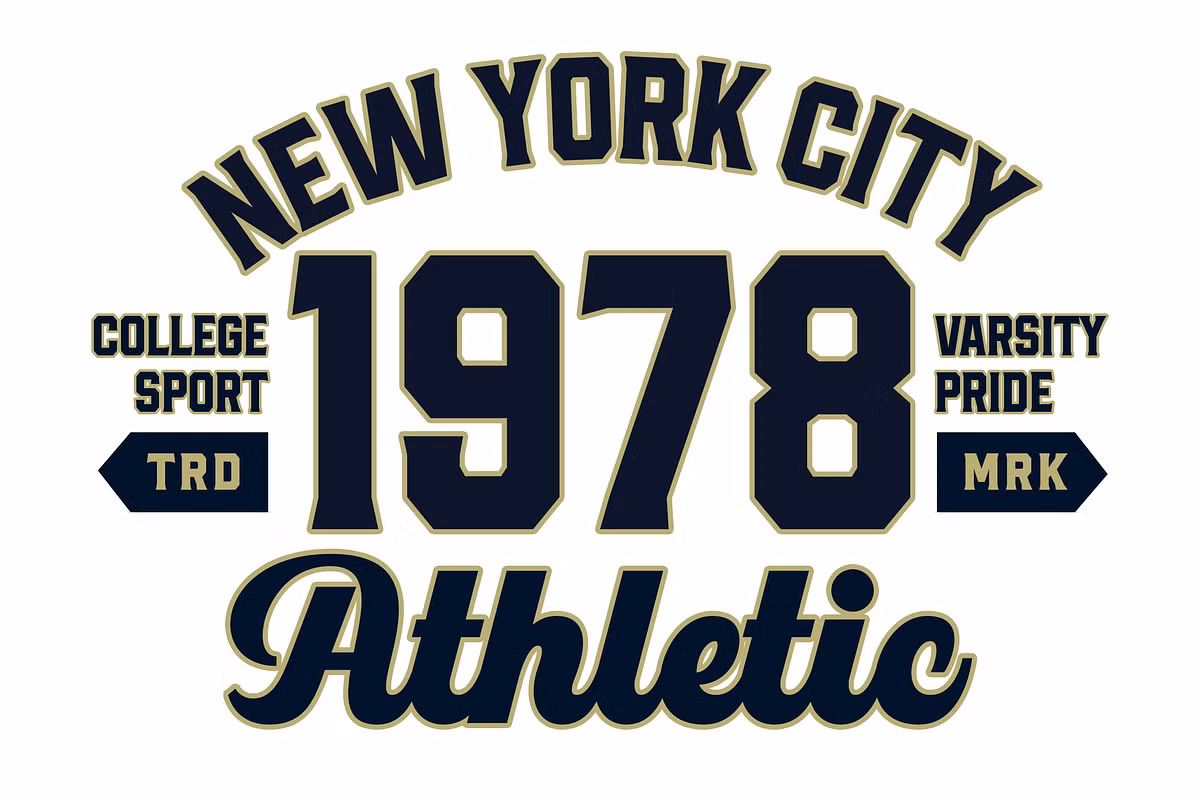
Thomkit Strike: Bold Varsity Font Duo for Sports Branding and Design
Introducing Thomkit Strike
Thomkit Strike is a really cool font that combines a strong, sporty look with a smooth, energetic feel. It’s inspired by old-school American sports typography, college lettering, and classic athletic branding. This font duo is perfect for making a big impact and capturing the spirit of competition. If you’re working on a sports branding project, designing team apparel, or creating promotional materials, Thomkit Strike is a great choice. It’s all about conveying a sense of athleticism and energy, and it does it really well. Whether you want to add some excitement to your designs or just make a statement, Thomkit Strike is a bold and dynamic option that’s sure to deliver. With its unique blend of sporty serif and smooth script styles, it’s an ideal choice for designers who want to bring a competitive edge to their work.
Design Style of Thomkit Strike
The Thomkit Strike design is really bold and eye-catching. It’s got a serif style with thick lines, sharp edges, and proportions that show it means business. This makes it great for things like headlines, logos, and posters – anything that needs to stand out and look strong. But what’s also cool is the script font that comes with it, which adds a personal touch and a bit of movement to the design. It’s like handwriting, but still looks really professional and authentic. The combination of the two fonts works really well together, creating a nice contrast that adds personality to any design project. Whether you’re making a jersey, a poster, or just a logo, Thomkit Strike is a great choice if you want something that’s going to grab people’s attention and make a statement.
The Thomkit Strike font is really versatile, which means it can fit in with lots of different design styles. It’s got a classic serif look that’s perfect for traditional sports brands, but it also has a modern script style that will appeal to younger audiences. When you use Thomkit Strike, your designs will not only look great, but they’ll also give off a sense of movement and energy, which is exactly what you want for sports-related projects. This font is all about balance – it’s got the old and the new, the classic and the contemporary, all mixed together in a way that just works. Whether you’re designing a logo, a poster, or a website, Thomkit Strike is a great choice because it’s so adaptable. It can help you create designs that are both visually striking and full of energy, which is perfect for capturing the excitement of sports.
Character Sets and Features
Thomkit Strike is designed with a comprehensive character set that caters to a wide range of typographic needs. Including uppercase and lowercase letters, numerals, and a variety of special characters, this font duo is equipped to handle everything from headlines to intricate branding elements. The serif font provides an array of weights and styles, enhancing its usability for different applications.
The way the script font works with the serif font is really nice. It adds a flowing, cursive touch that makes everything look better, without taking away from the main message. This design is well thought out, so the text is always easy to read and makes an impact, whether it’s in a book or on a screen. Having both a strong serif and a fun script font gives designers the freedom to try out different styles, which keeps their work looking new and interesting. This mix of fonts is great because it lets designers be creative and make something that really stands out.
Use Cases for Thomkit Strike
The Thomkit Strike font is really good for lots of different design projects. It can be used in many ways, here are a few examples of where it works well:
- Sports Branding: Perfect for team logos, merchandise, and promotional materials that require a strong athletic identity.
- Apparel and Merchandise: Ideal for jersey designs, t-shirts, and sportswear that need a bold and recognizable typeface.
- Posters and Advertisements: Use Thomkit Strike to create eye-catching posters for events, games, and sports-related promotions.
- Social Media Graphics: Enhance your online presence with striking graphics that capture attention and convey a sense of movement.
- Retro-Themed Designs: Thomkit Strike’s vintage inspiration makes it an excellent choice for retro branding and nostalgic designs.
When it comes to creating designs for sports like football, basketball, or baseball, you need a solid base to work from. That’s where Thomkit Strike comes in – it’s the perfect starting point for building your typographic design, no matter what sport you’re working with.
To maximize the impact of your designs, consider pairing Thomkit Strike with complementary typefaces. Here are some suggestions:
- The Chicago Athlete font has a classic, sporty look that really adds to the energetic vibe of sports designs when paired with Thomkit Strike, making it a great choice for creating bold and dynamic sports visuals.
- Varsity Signature: The script elements of this font pair beautifully with Thomkit Strike, adding a personal touch to your designs.
- The Urban Shadow font is a modern sans-serif style that works well with the bold Thomkit Strike, making a balanced look. It’s a good mix of simple and strong, which creates a nice design.
- Golden Varsity: This college duo font complements Thomkit Strike’s classic style, making it ideal for collegiate branding.
- Brown College: A sport serif font that enhances the authoritative look of Thomkit Strike, perfect for educational and athletic contexts.
Experimenting with these pairings can provide fresh perspectives and elevate your designs to new heights.
Thomkit Strike is more than just a font – it’s a game-changer for designers in the sports branding world. This font duo is all about making a bold statement, with its serif display and script style that screams athleticism and competition. When you’re creating team logos, merchandise, or promotional materials, you need a font that can keep up with the energy of the game. That’s where Thomkit Strike comes in – it’s versatile, it’s visually striking, and it’s perfect for making your designs stand out from the crowd. By combining classic sports character with modern design, Thomkit Strike helps you tap into the competitive spirit and take your designs to the next level. Whether you’re looking to create a lasting impression or just want to add some excitement to your designs, Thomkit Strike is the perfect choice. With its unique blend of style and substance, this font duo is sure to be a winner.